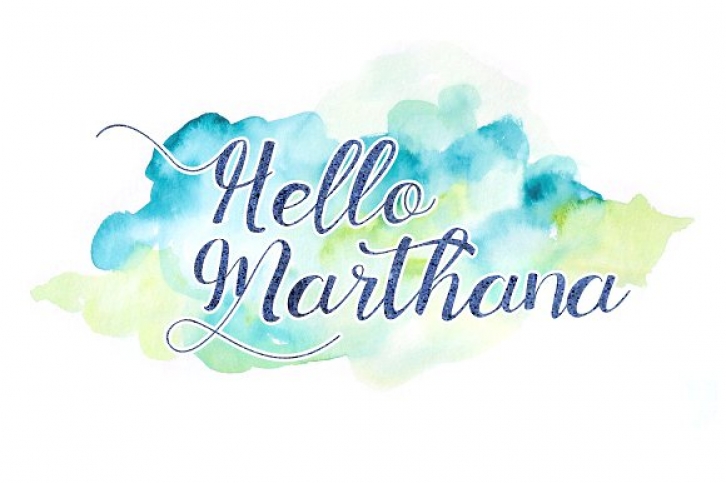
Marthana is an extremely gorgeous, flourished font; this font is a great calligraphy option for a wide range of romantic and special occasion designs.